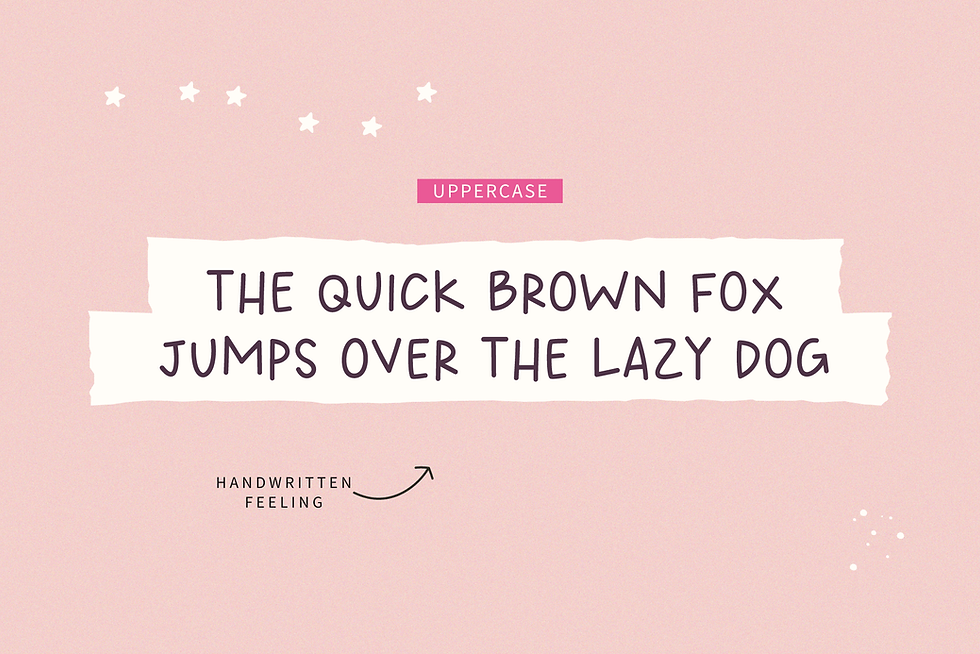
HANDMADE STARS
HANDMADE STARS is a cute handwritten font.
This font was created especially to take digital notes but also is perfect for quotes, shirt designs, stickers, your social media post/quotes, children's designs, blogs and more!
⋒ Most accent characters included.
✷ Use the 2 symbols included to make cute compositions.
• Period centered symbol · – Simple star
• Bullet symbol • – "Crazy" star